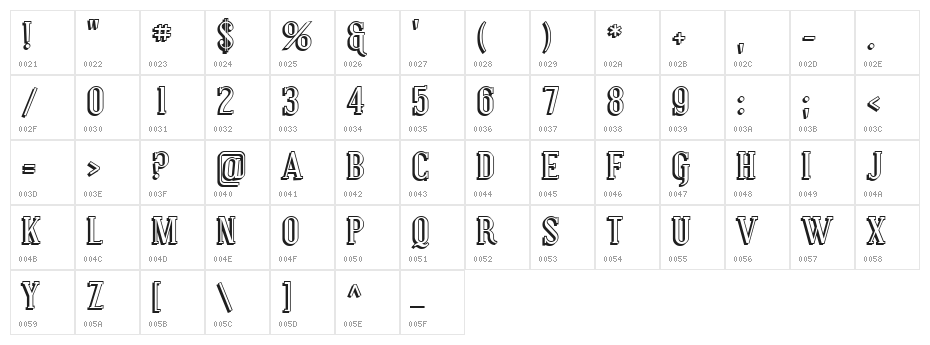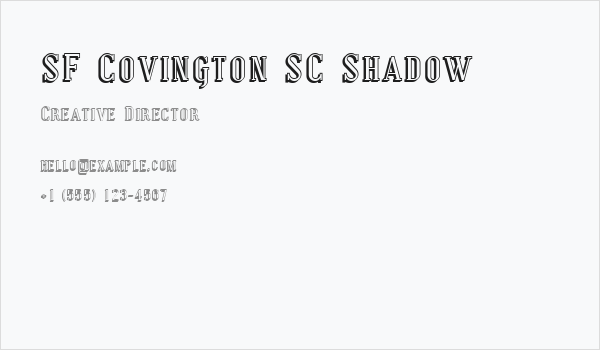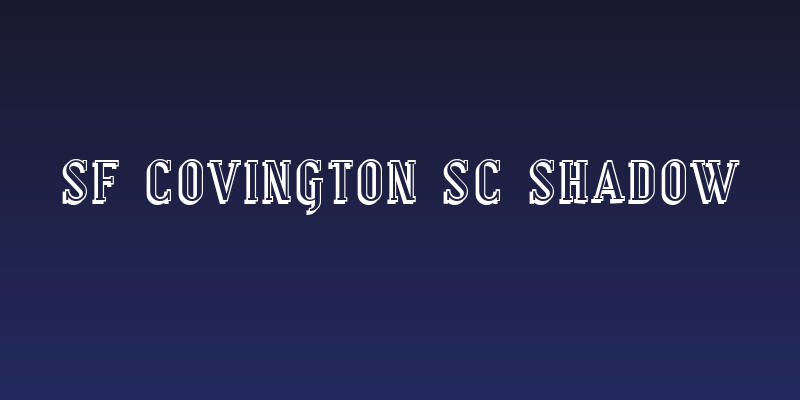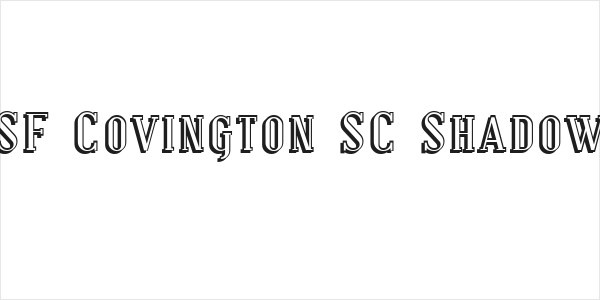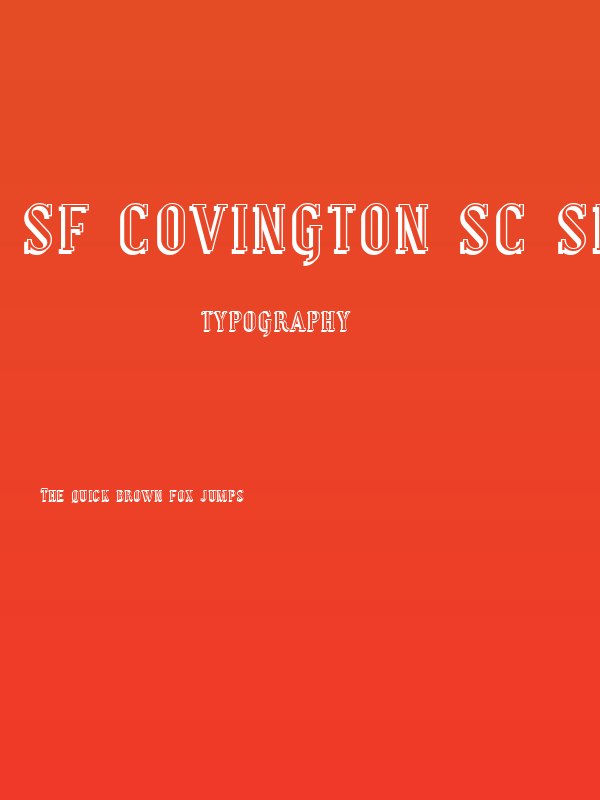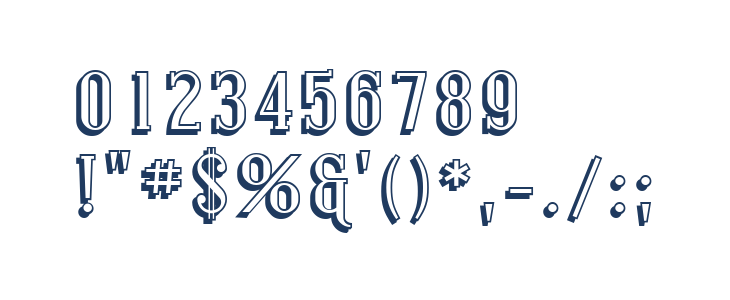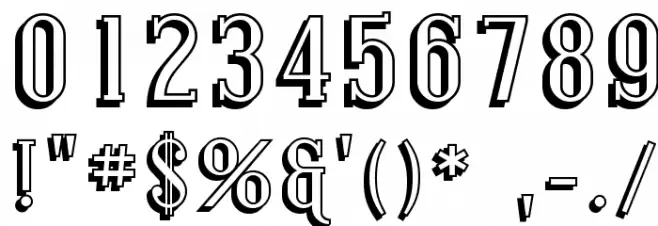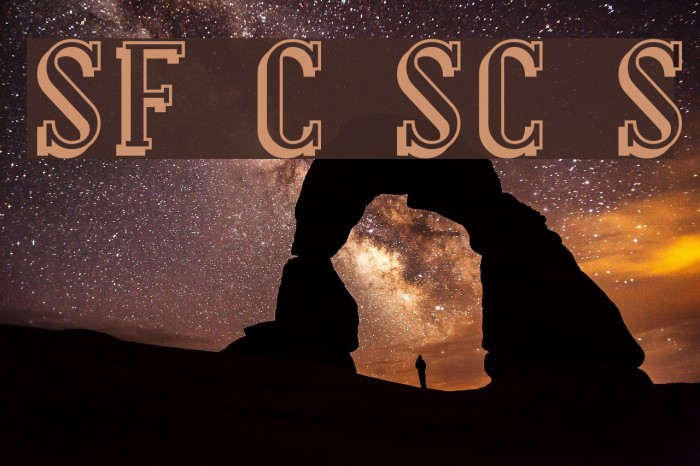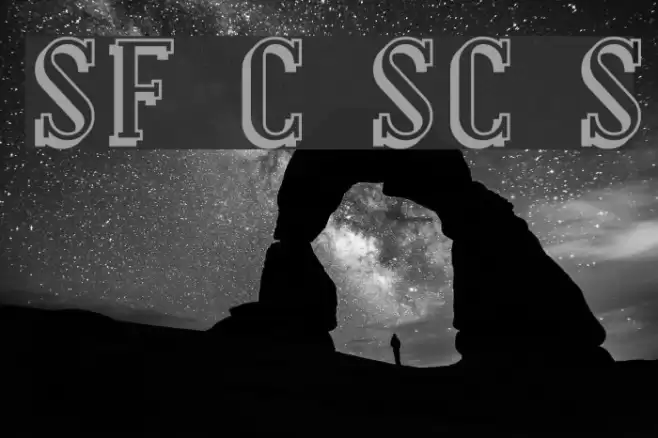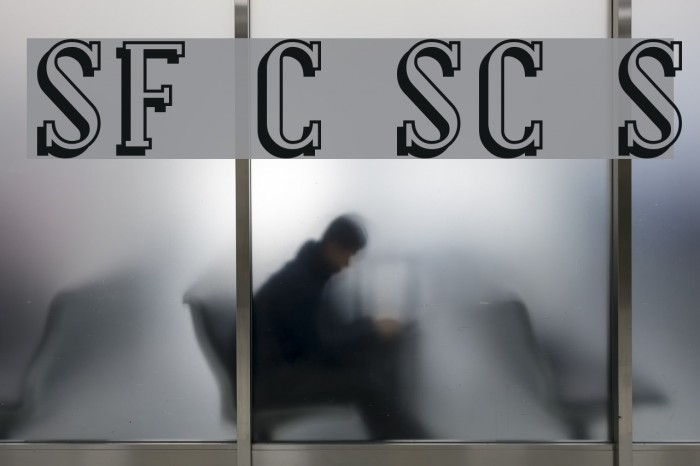
SF Covington SC Shadow Font
SF Covington SC Shadow Description
This font features a bold, decorative style with a distinct shadow effect that adds depth and dimension to each character. The uppercase letters are prominent and commanding, making them ideal for attention-grabbing headlines. The lowercase letters maintain the same boldness, ensuring consistency throughout the text. Numbers and special characters are equally stylized, providing a cohesive look across all elements. The font's shadow effect enhances its visual appeal, making it suitable for projects that require a strong, impactful presence.
SF-COVINGTON-SC-SHADOW UPPERCASE
SF-COVINGTON-SC-SHADOW LOWERCASE
SF-COVINGTON-SC-SHADOW OTHER CHARS